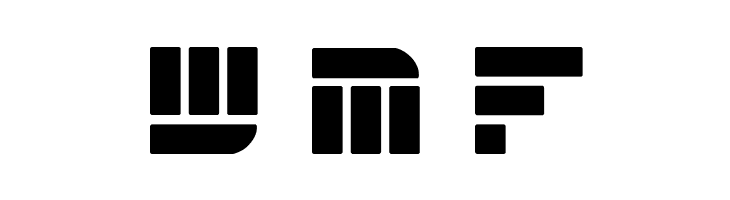
A modern, rounded font with a futuristic and streamlined design.
A futuristic, tall, and narrow font with rounded edges and a modern aesthetic.
A modern, wide, and rounded font with a futuristic appeal.
A geometric, polygonal font with a modern and artistic style.
A bold, playful font with thick, rounded edges and a whimsical style.
A hand-drawn, artistic font with elongated strokes and whimsical character shapes.
A bold, playful font with a whimsical, hand-drawn appearance.
A playful, spooky font with melting, dripping characters and bold outlines.
A bold, rounded, and geometric font with interconnected characters.
A bold, dynamic font with sharp, angular edges and an exotic flair.
A modern, geometric typeface with a clean and professional look.
A bold, geometric font with a futuristic, stencil-like design.
A 3D cubic font with a modern, geometric style.
A 3D cubic font with characters formed by negative space, offering a futuristic and architectural style.
A 3D isometric font with bold, geometric cube-like characters.
A 3D geometric font with characters enclosed in cube-like structures, offering a futuristic and architectural style.
A modern, cube-structured font with a bold, geometric, and three-dimensional design.
A modern, cube-inspired font with bold, geometric characters.
A bold, playful font with an irregular, organic style and blobby texture.
A playful, bold font with a unique shadow effect and cartoonish style.
A futuristic, geometric font with clean lines and sharp angles.
A futuristic, hollow, geometric font with clean lines and angular shapes.
A futuristic, rounded font with smooth curves and geometric precision.
A futuristic, hollow, and rounded font with a geometric design.
A futuristic font with sharp, angular lines and a tapering effect.
A modern, geometric font with clean, rounded edges and uniform stroke width.
A modern, geometric font with thin, uniform lines and a minimalist style.
A modern sans-serif font with clean lines and balanced proportions.
A bold, modern sans-serif font with clean lines and balanced proportions.